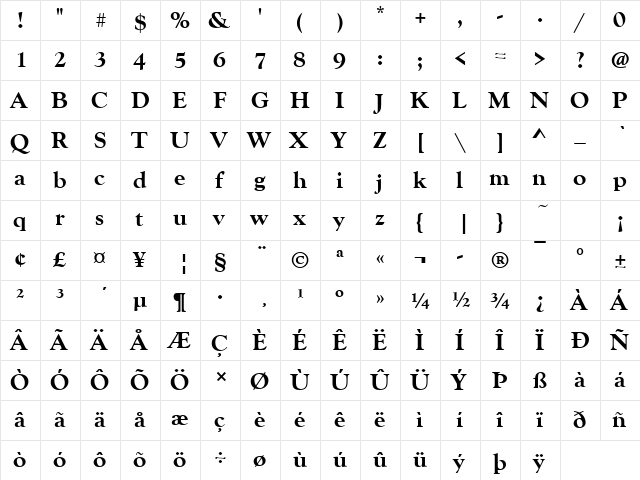
Goudy Becker Old Style Ext Bold Regular Font Preview
Goudy Becker Old Style Ext Bold Regular
Goudy Becker Old Style Ext Bold Regular Font Details
Design Context for Goudy Becker Old Style Ext Bold Typeface
Goudy Becker Old Style Ext Bold takes a measured approach to typography — its balanced proportions and neutral character make it a reliable workhorse for both digital and print work. The heavy weight commands attention and anchors typographic hierarchies.